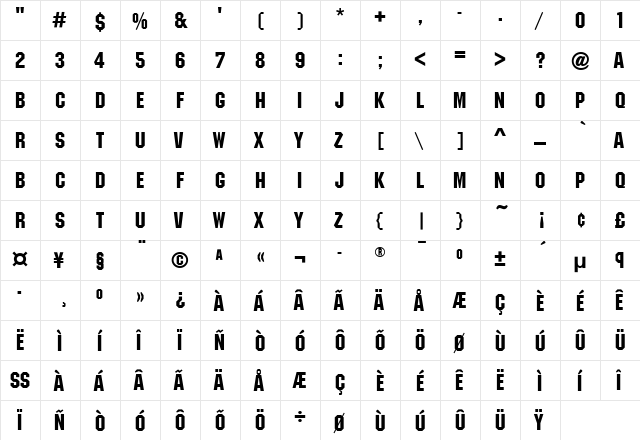
MachineITC Medium Font Preview
MachineITC Medium
MachineITC Medium Font Details
| Foundry | International Typeface Corporation |
Design Context for MachineITC Typeface
MachineITC offers clean, dependable letterforms without strong stylistic allegiance, making it a practical choice for designers who need flexibility.